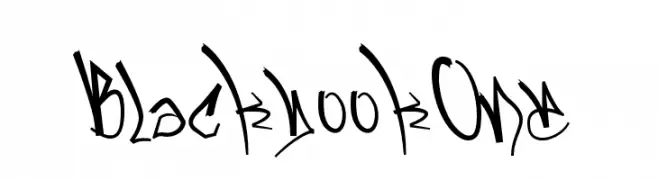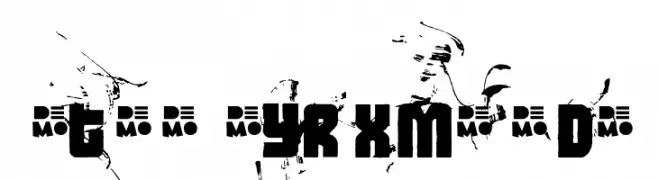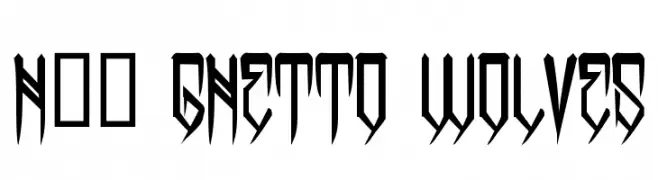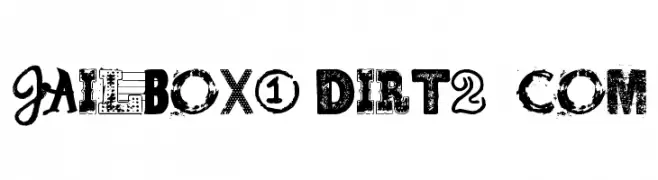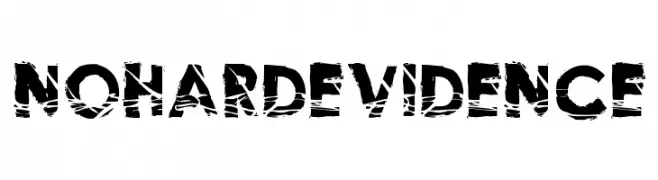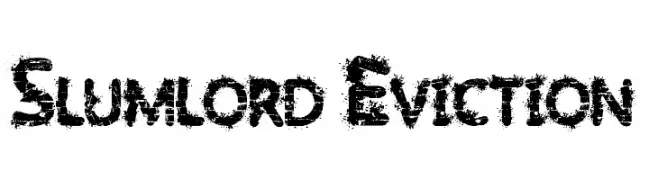
( Fonts by Jeri Ingalls - littlehouse.homestead.com )
A bold, angular font with a graffiti-inspired style and high contrast.
( Fonts by Rob Dobi - Toxic Type - www.dobi.nu )
A bold, dynamic font with a playful, hand-drawn style.
( Fonts by www.aenigmafonts.com )
A bold, jagged, and geometric font with an edgy, hand-drawn appearance.
( Fonts by Anthem Type - Joey Nelson )
A bold, distressed font with a rugged, urban aesthetic.
( Fonts by www.DigitalDreamDesign.net )
A bold, edgy, hand-drawn decorative font with a graffiti-like style.
( Font by http://home.luna.nl/~xino/ )
A rugged, distressed font with a grungy, hand-drawn style.
( Fonts by Mr Fisk - Mike Larsson - fontorama.net )
A bold, dripping font with a graffiti-inspired style.
( Fonts by or from www.graffitifonts.net )
A chaotic, distressed font with jagged, uneven strokes for a grunge aesthetic.
( Fonts by TarmSaft Font Factory - http://www.aska.nu/tarmsaft/ )
A bold, distressed font with a grunge aesthetic and uneven edges.
( Fonts by www.stimuleyefonts.com )
A bold, distressed font with a grunge, hand-drawn style.
( Fonts by Rob Dobi - Toxic Type - www.dobi.nu )
A bold, distressed font with a grunge-like, graffiti-inspired style.
( Fonts by Matthew Austin Petty - www.disturbed.com )
A distressed, grungy font with jagged edges and irregular strokes.
( Fonts by uatype.faithweb.com - UnAuthorized Type )
A bold, scratch-like font with a chaotic, hand-drawn appearance.
( Fonts by Rob Dobi - Toxic Type - www.dobi.nu )
A distressed, grungy font with bold, jagged uppercase letters.
( Fonts by Omega Font Labs )
A bold, grungy font with a bubble-like texture and rough edges.
( Fonts by www.sweeep.fr - Damien Gosset )
A raw, edgy font with jagged strokes and a distressed, graffiti-like appearance.
( Fonts by Jacob Fisher - www.pizzadude.dk )
A rugged, distressed font with a hand-drawn, edgy style.
( Fonts by Utopiafonts )
A bold, distressed font with jagged edges and a turbulent, rebellious style.